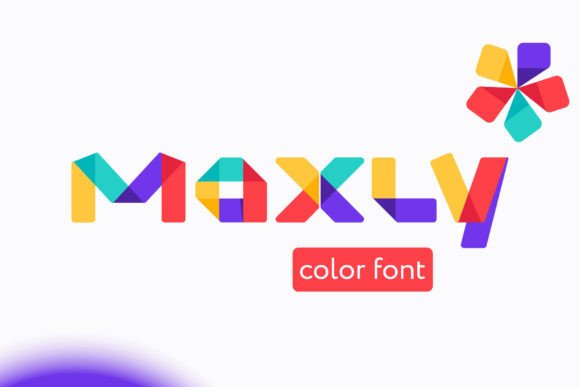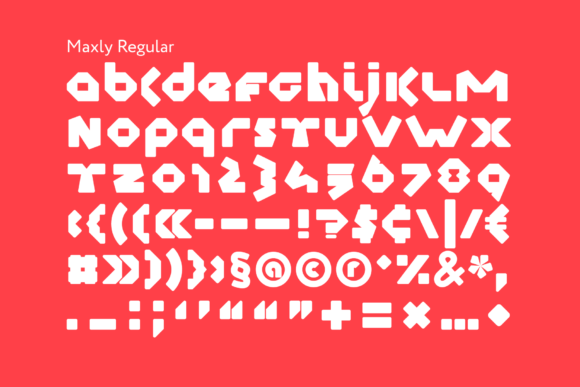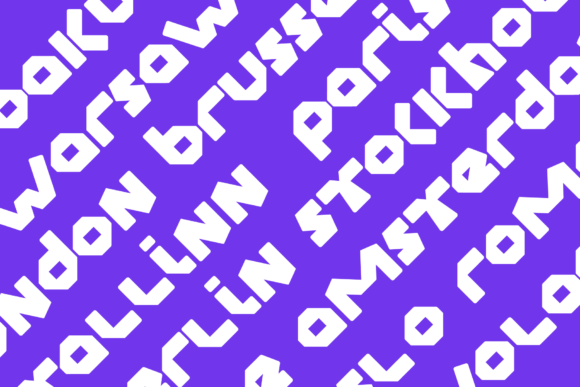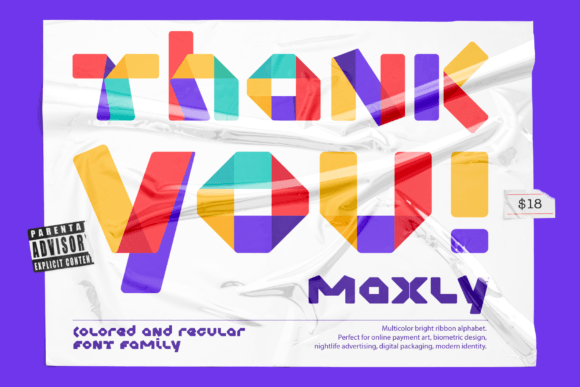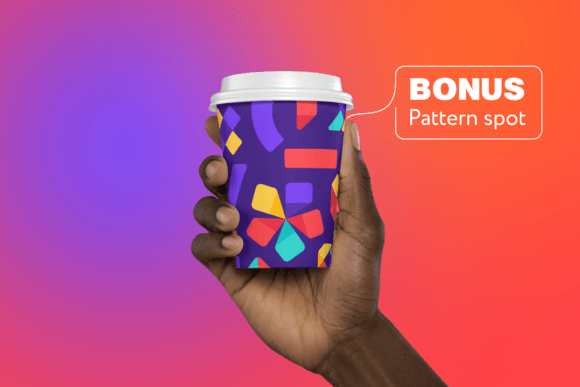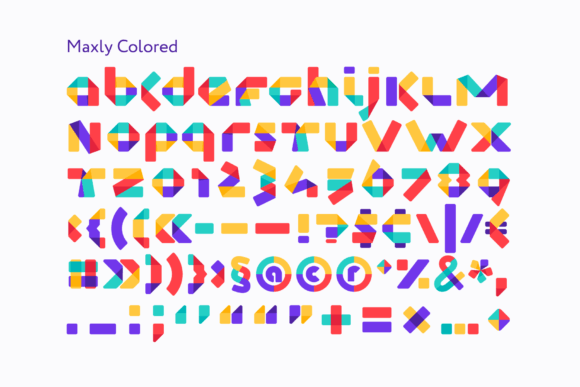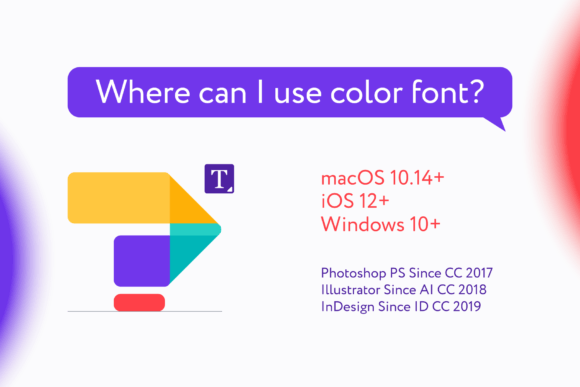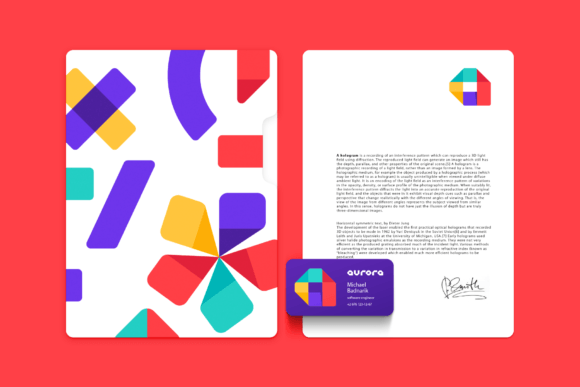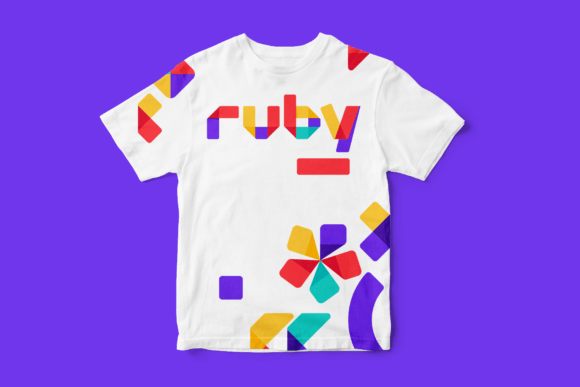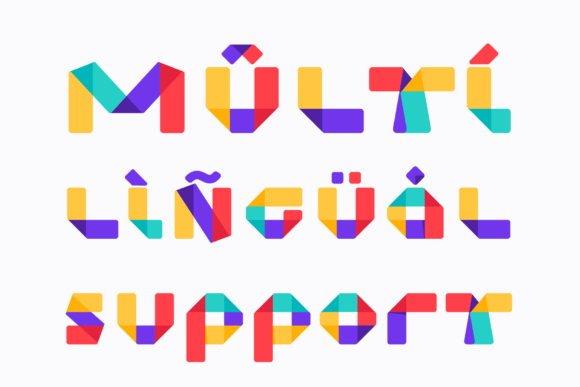
Maxly Font
About Maxly Font
Maxly is indeed a fantastic choice for adding a fun and bold touch to your designs. This display color font is packed with personality and can be used in various creative projects, making it a versatile option.
Whether you’re into crafting, digital designing, creating presentations, or making greeting cards, Maxly has got you covered. Its vibrant colors and playful letterforms make it a great choice for adding a touch of excitement and creativity to your work.
The bold nature of Maxly ensures that your designs will make a statement and grab attention. Its unique style and visual appeal make it perfect for headlines, titles, or any text that needs to stand out.
With Maxly, you have the freedom to explore different design possibilities and let your imagination run wild. Whether you’re creating posters, logos, social media graphics, or any other project that requires a fun and bold aesthetic, this font will bring your ideas to life.
So go ahead and unleash your creativity with Maxly. Let its playful charm and bold colors take your designs to the next level, making every project a visual delight.